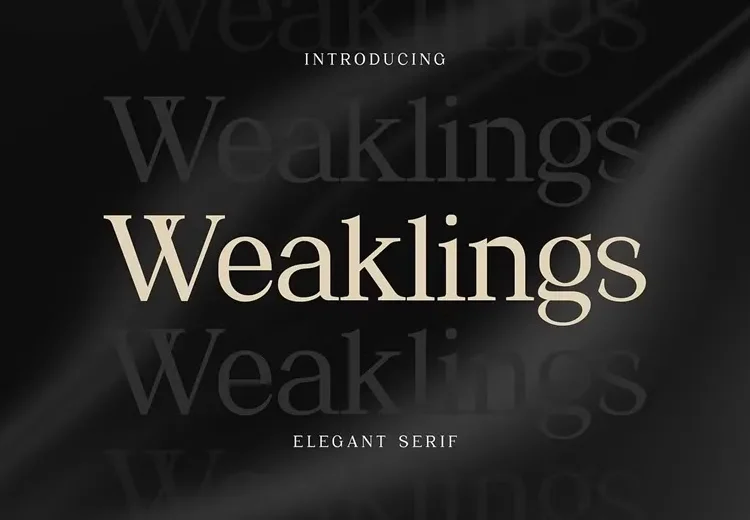
Weaklings Font
Weaklings Font is a contemporary serif font that combines beauty and elegance with a modern touch. Its stylish design makes it an ideal choice for various design projects that demand a professional appearance. Whether you’re working on editorial designs, book covers, or branding initiatives, Weaklings Font provides a sophisticated look that effectively conveys professionalism and class.
This font features clean lines and well-defined serifs, giving it a polished and refined appearance. Its versatility allows it to shine in both print and digital formats, making it suitable for a wide range of applications, from magazines and websites to business cards and promotional materials. Weaklings Font effortlessly enhances any design with its graceful and contemporary character.
Designed with attention to detail, Weaklings Font not only elevates the aesthetic of your projects but also ensures readability, making it an excellent choice for text-heavy applications. Its modern serif style creates a balance between traditional and contemporary elements, appealing to various audiences.